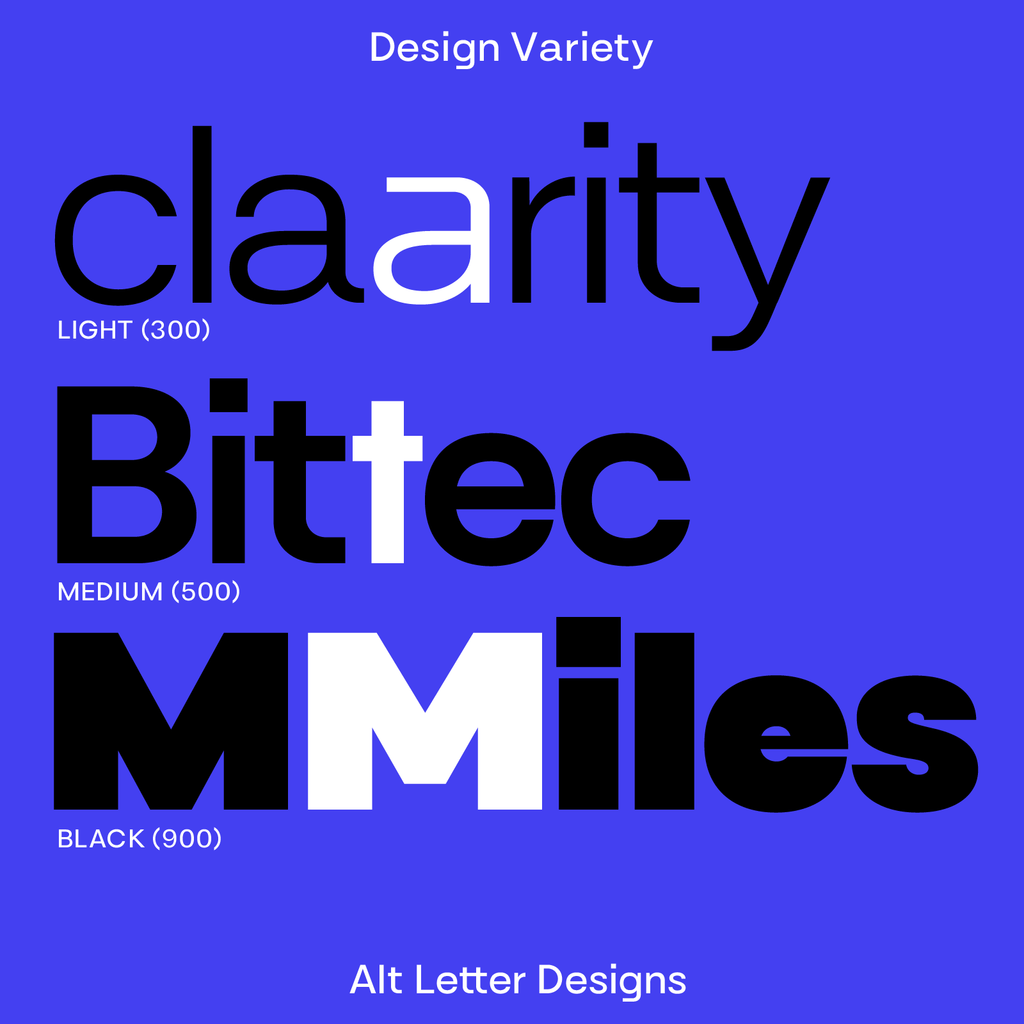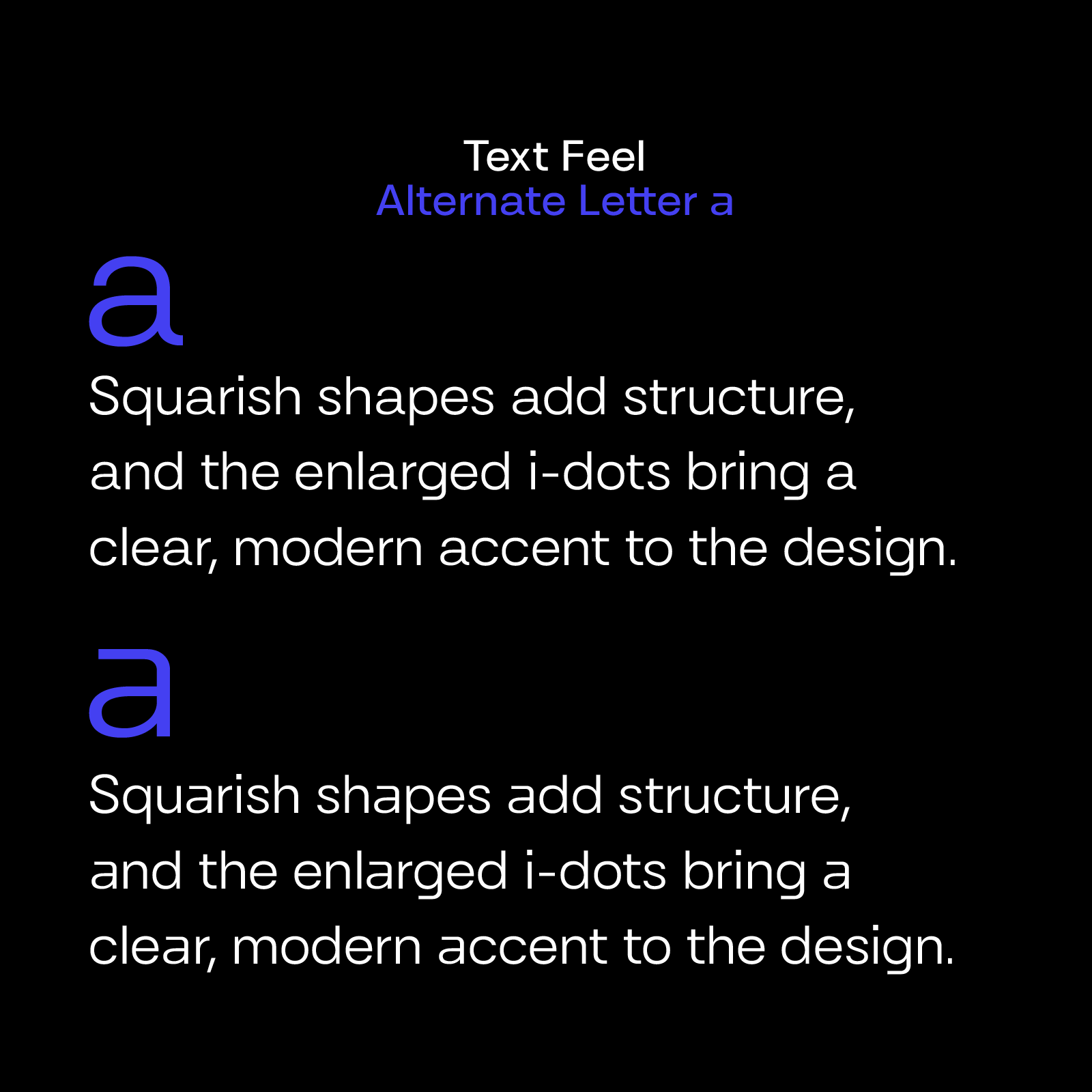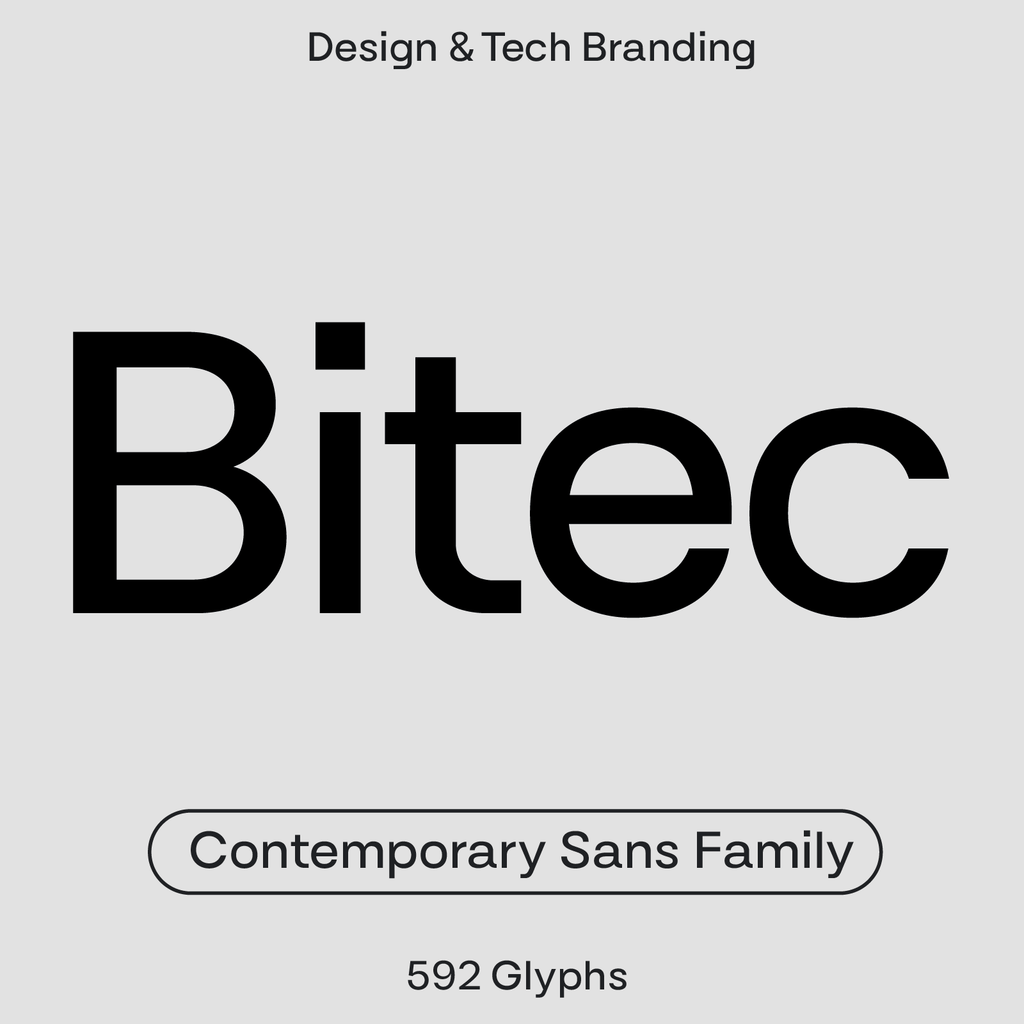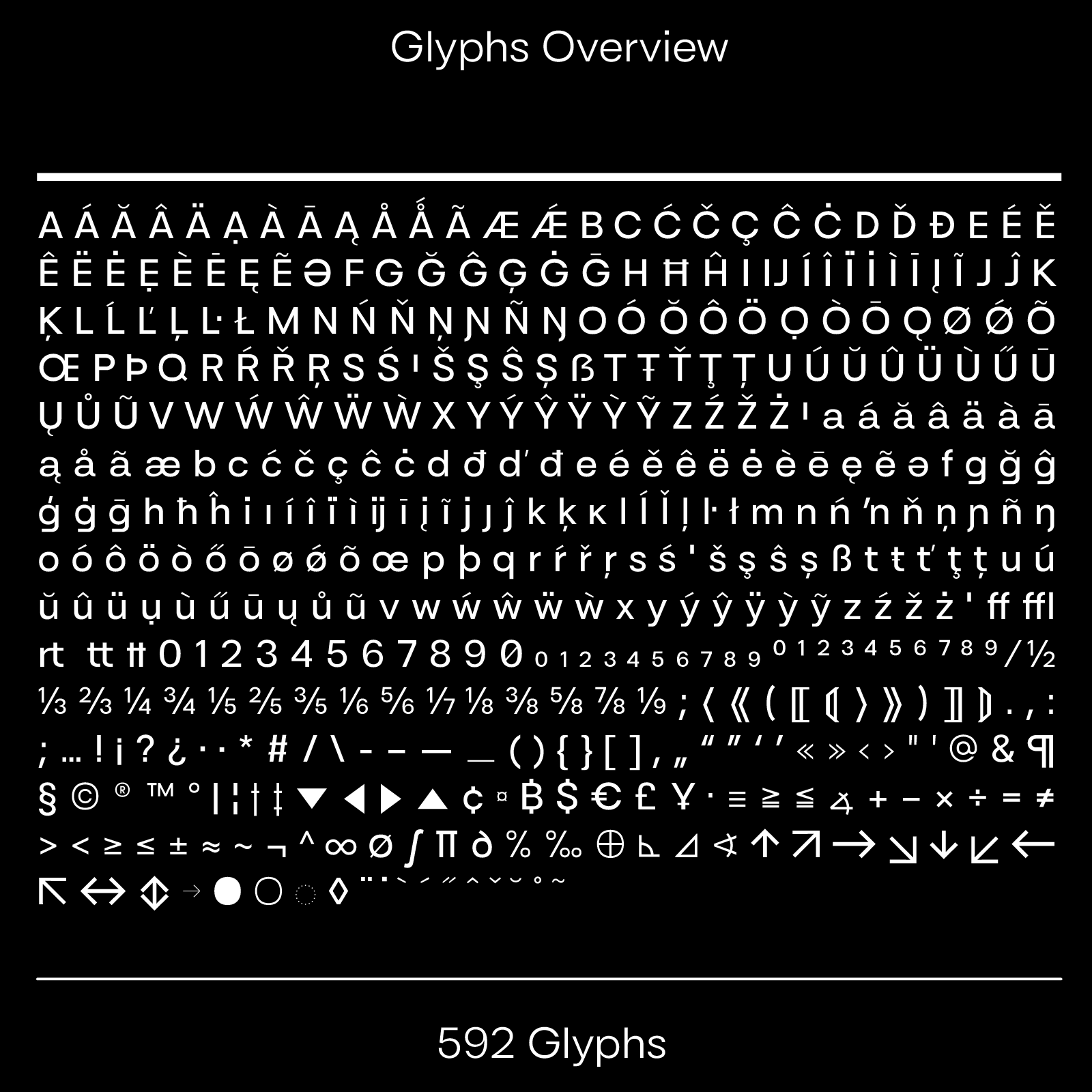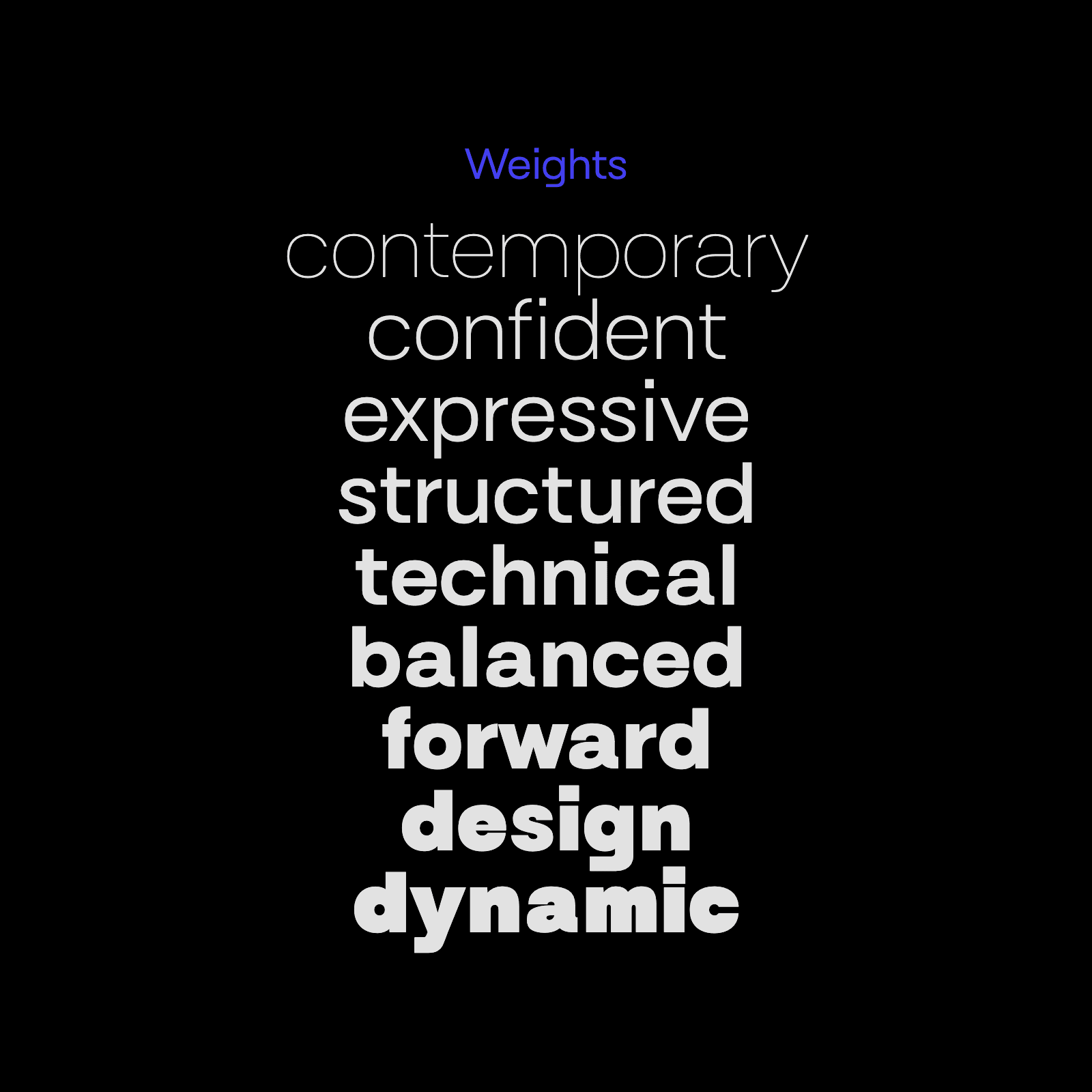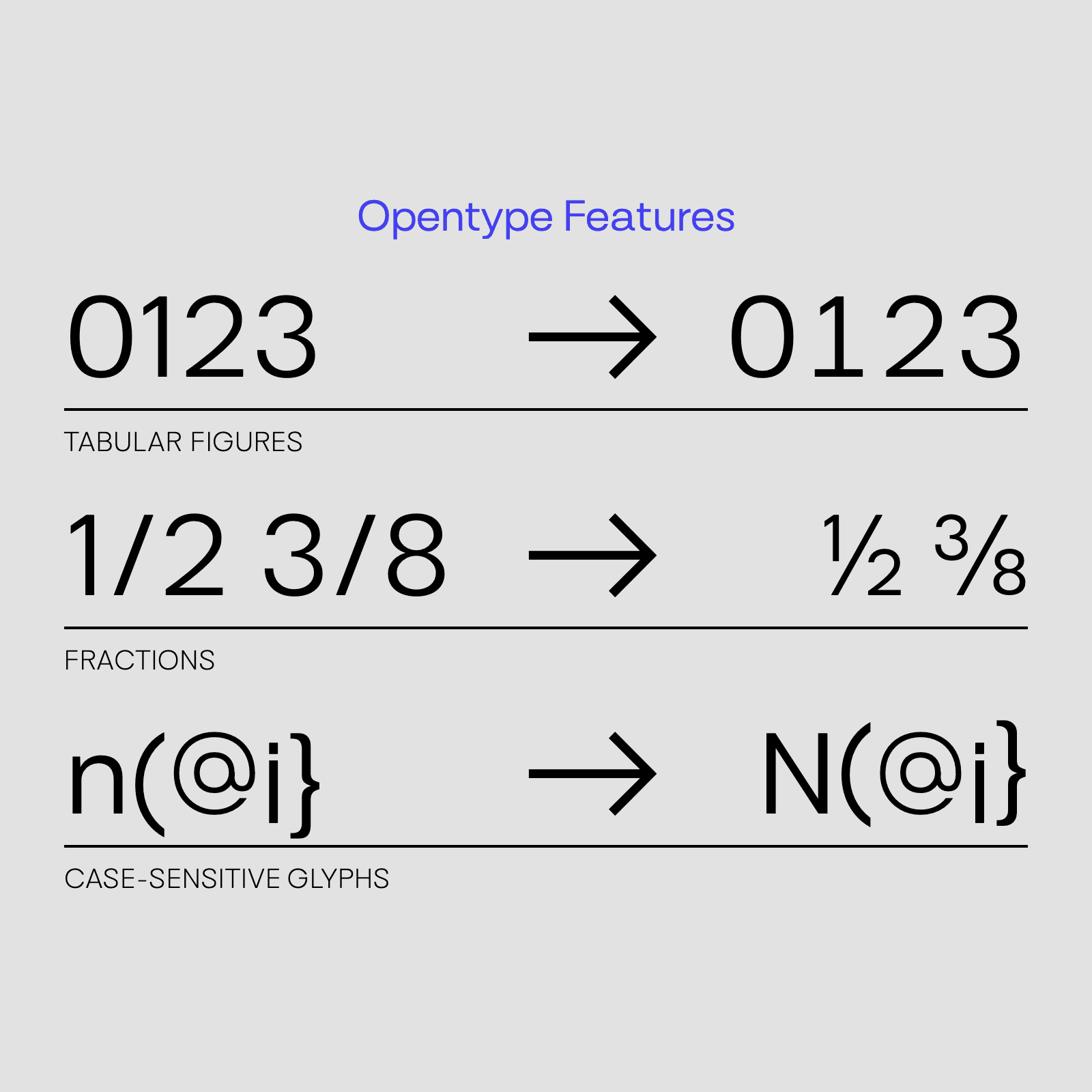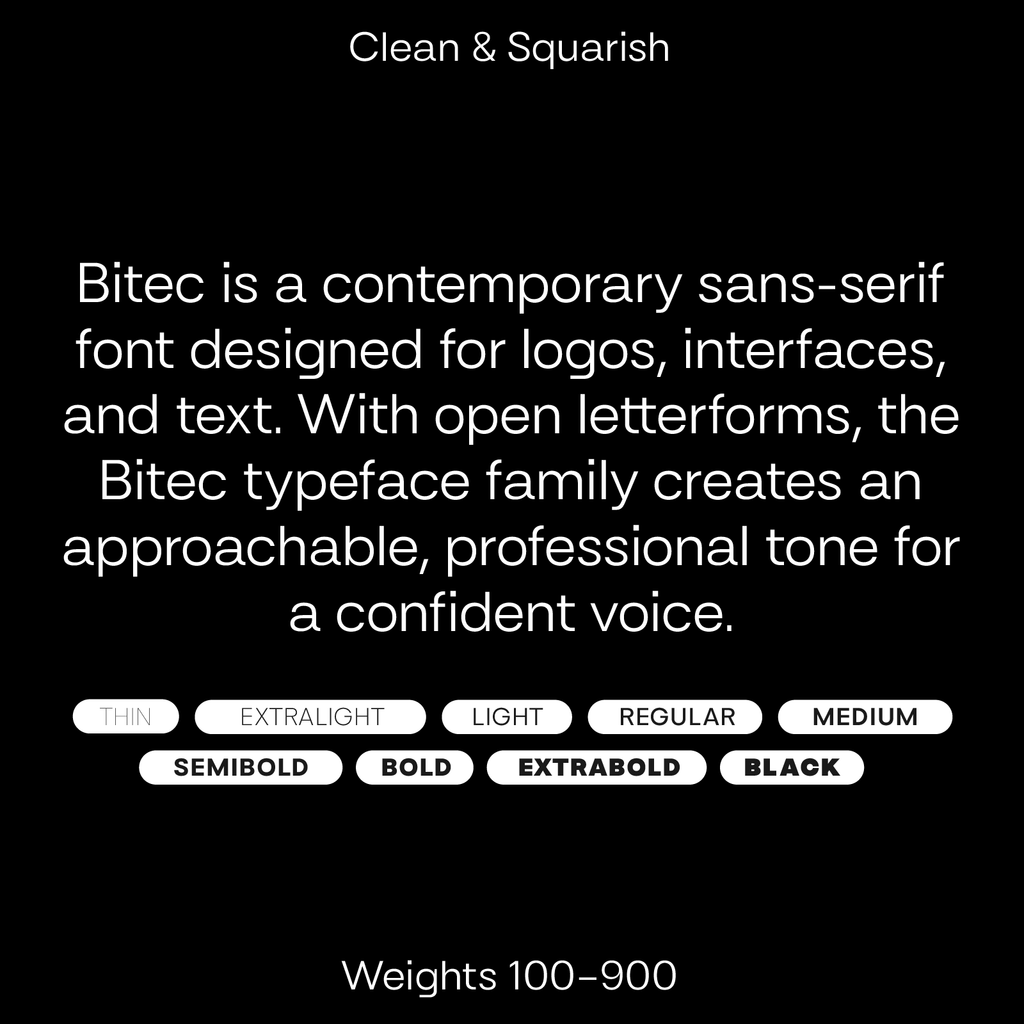
Bitec Sans—Modern Boxy Sans Serif Font
Bitec is a contemporary sans-serif font designed for logos, interfaces, and text. With open letterforms, the Bitec typeface family creates a unique, professional tone.
Squarish shapes add structure, and the enlarged i-dots bring a clear, modern accent to the design. The family includes nine weights, supporting consistent use across branding systems, from lighter editorial settings to stronger headline use.
Bitec works well for digital products, startups, and tech brands that value clarity with a confident voice.
Bitec Sans in detail
Family
Variable font, weight axis wght 100-950, with 9 named weights: Thin, ExtraLight, Light, Regular, Medium, SemiBold, Bold, ExtraBold, Black. 610 glyphs, 495 characters, 2 stylistic sets.
Languages
Latin, Western European accents, Central European.
Figures
Proportional, tabular, slashed zero.
OpenType features
Case-sensitive punctuation, discretionary ligatures, fractions, standard ligatures, proportional figures, tabular figures, slashed zero.
Ligatures
On by default: ff, ffl, tt. Discretionary, switched on by the designer: rt.